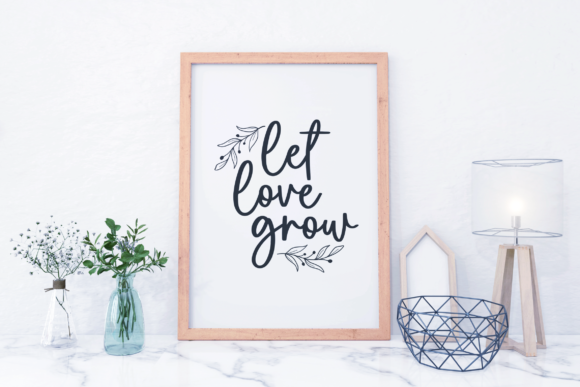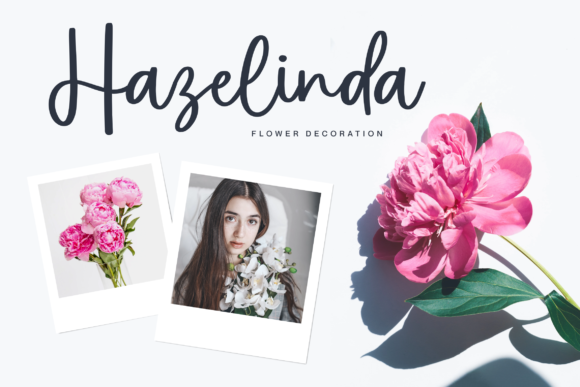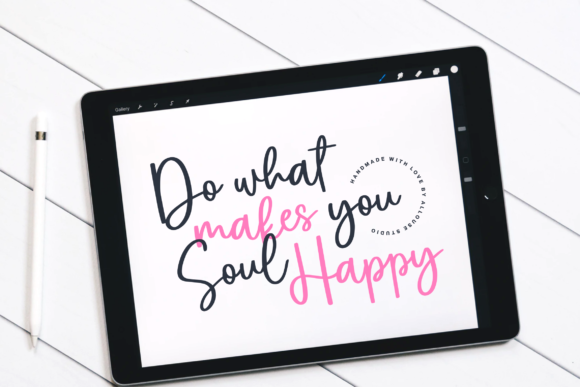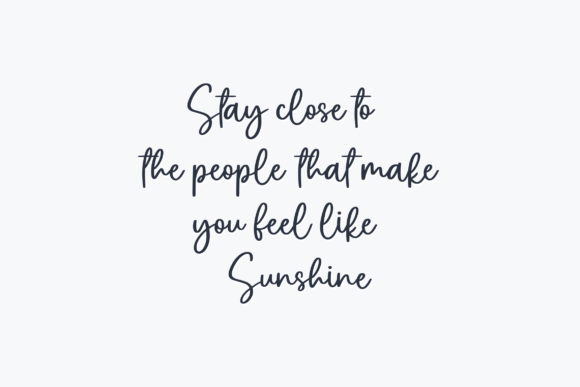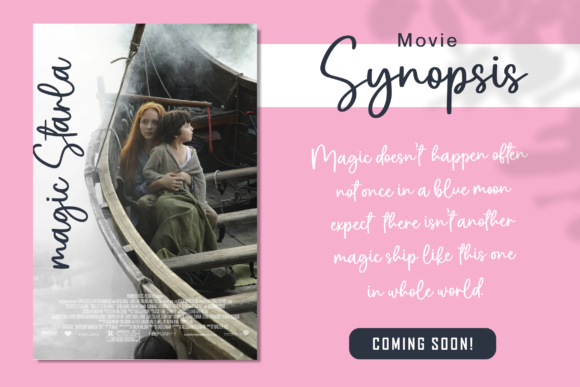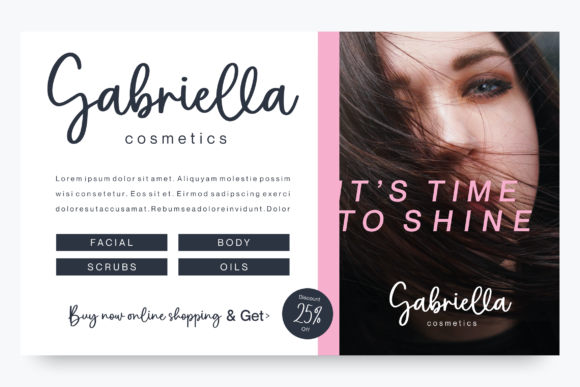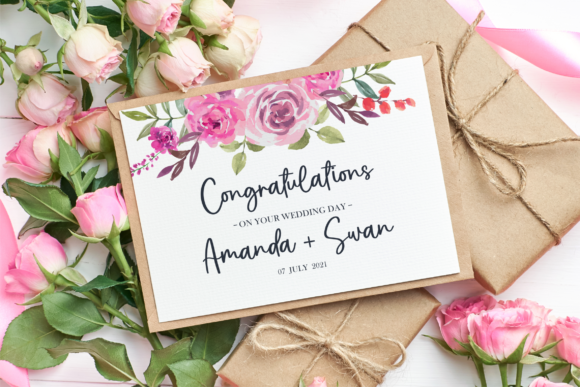
Oyscake Font
Oyscake is an incredibly distinct, delicate and timeless handwritten font. It looks stunning on wedding invitations, thank you cards, quotes, greeting cards, logos, business cards and every other design which needs a customized touch.